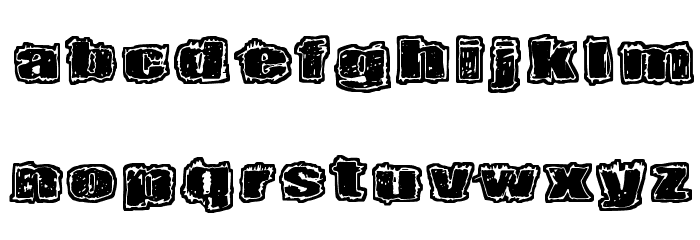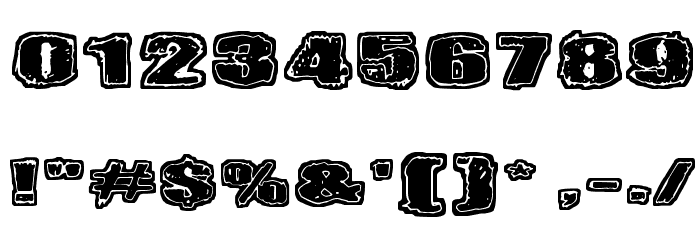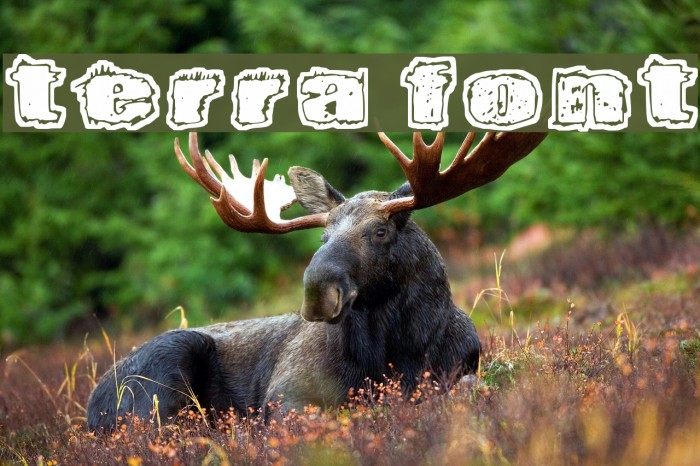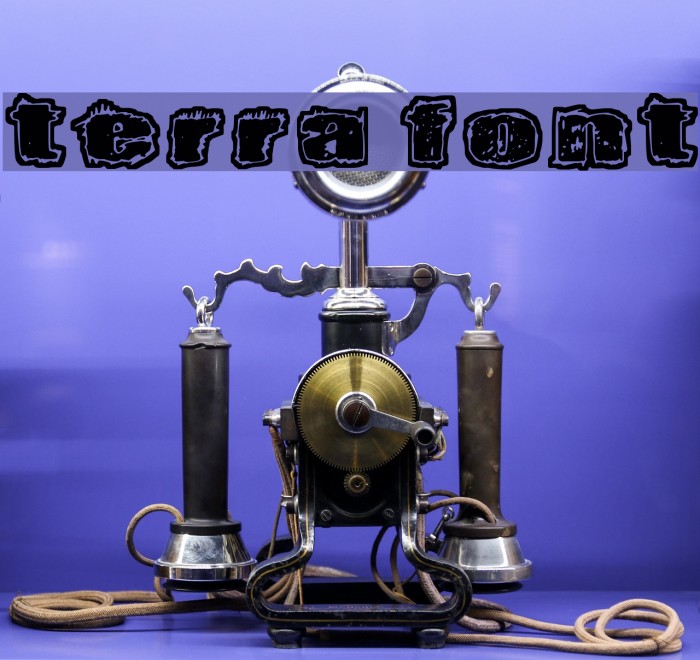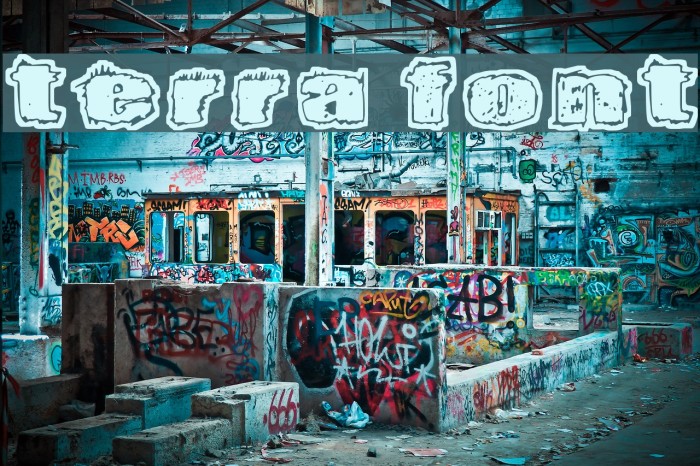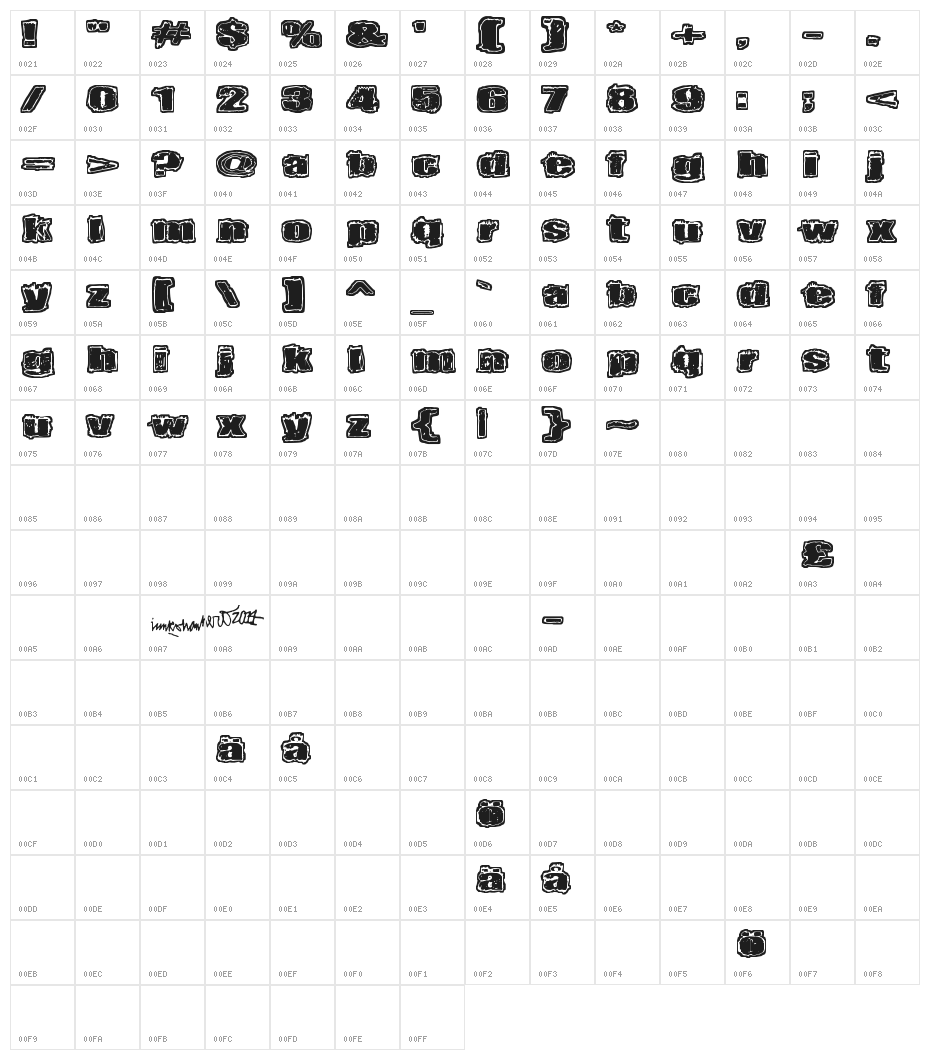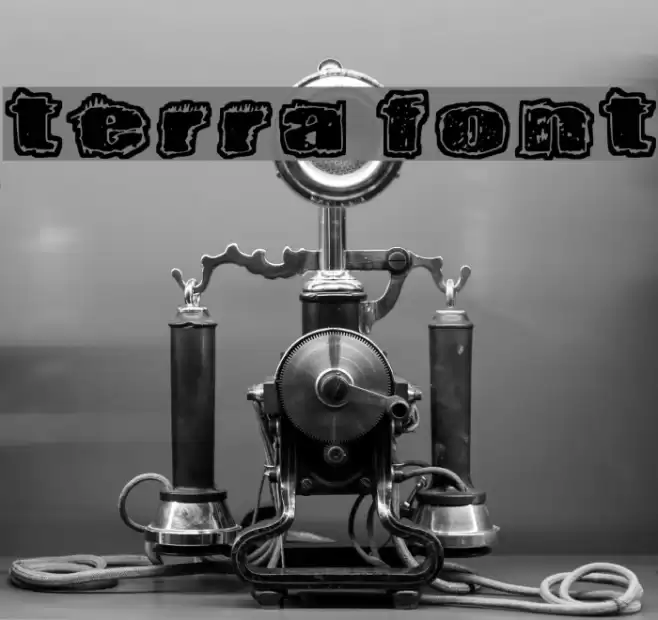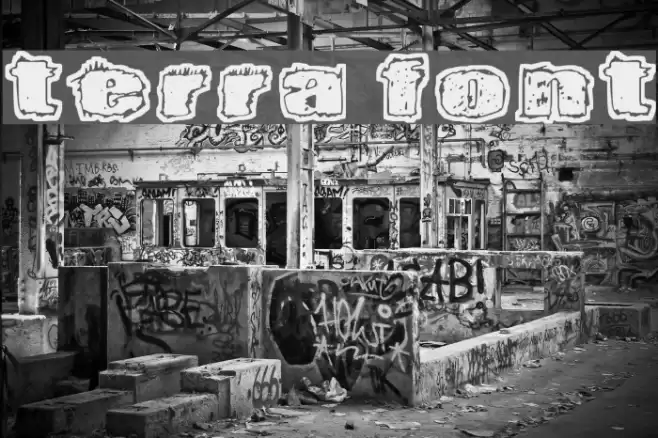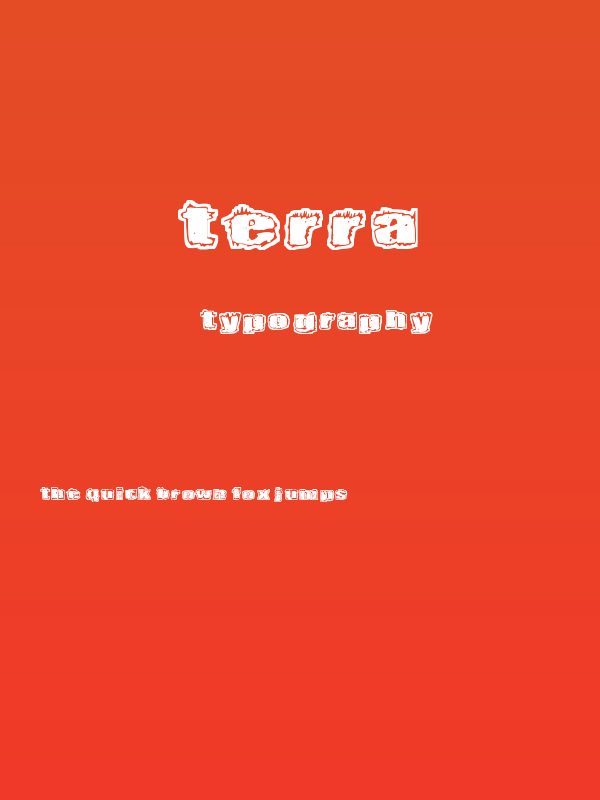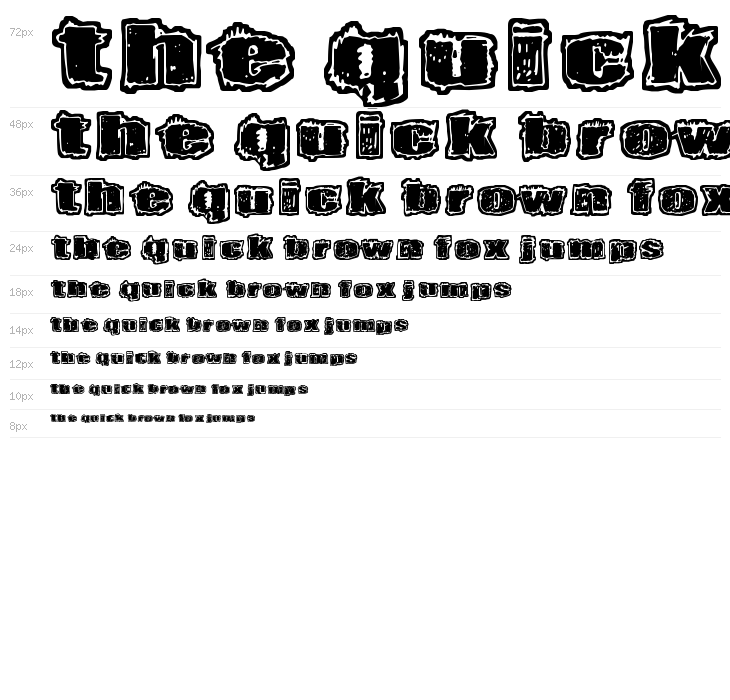
Terra Font
This font features a bold, distressed style with a rugged, textured appearance. Each character is outlined with a thick, uneven border, giving it a rough, hand-drawn look. The letters are uppercase and lowercase, with numbers and a variety of special characters included. The font's design is reminiscent of graffiti or street art, with an edgy and rebellious vibe. The irregular edges and bold strokes make it stand out, perfect for designs that require a strong visual impact. Its unique style is suitable for projects that aim to convey a sense of raw energy and creativity.
- Proposed Projects: Ideal for posters, album covers, streetwear branding, and urban-themed designs.